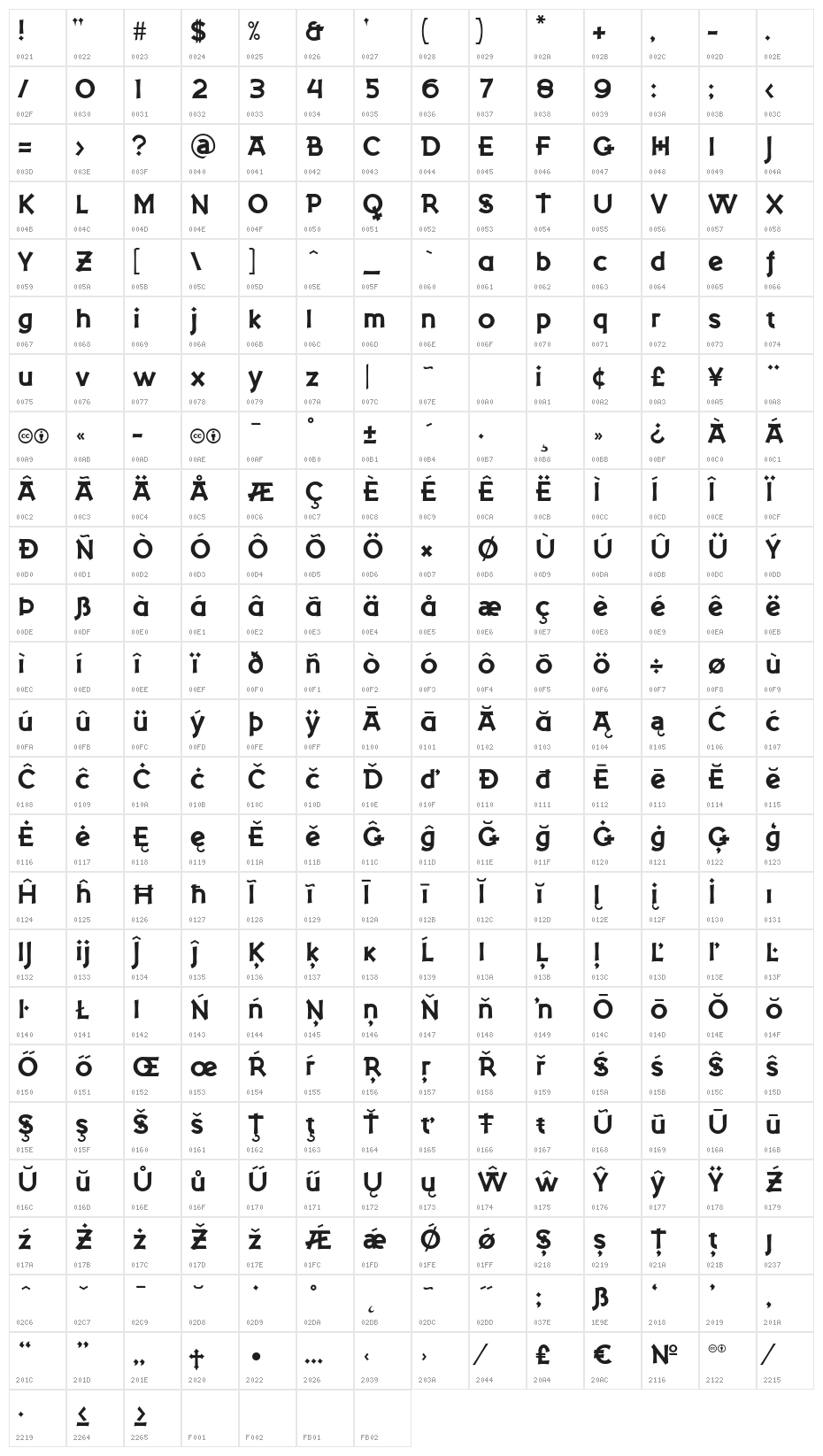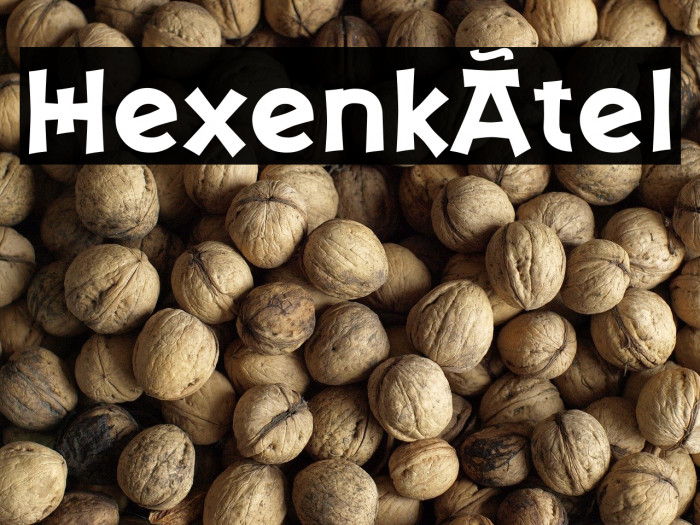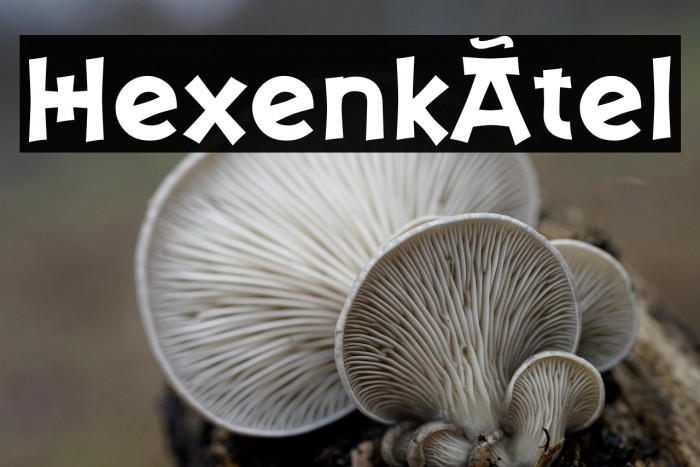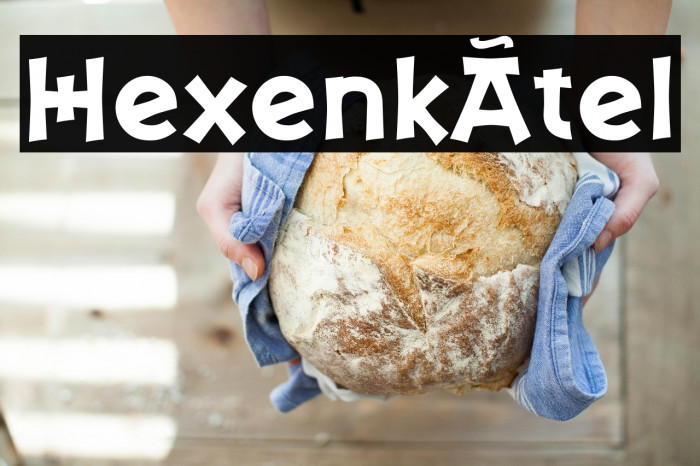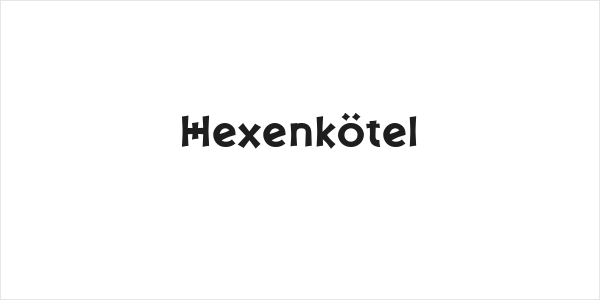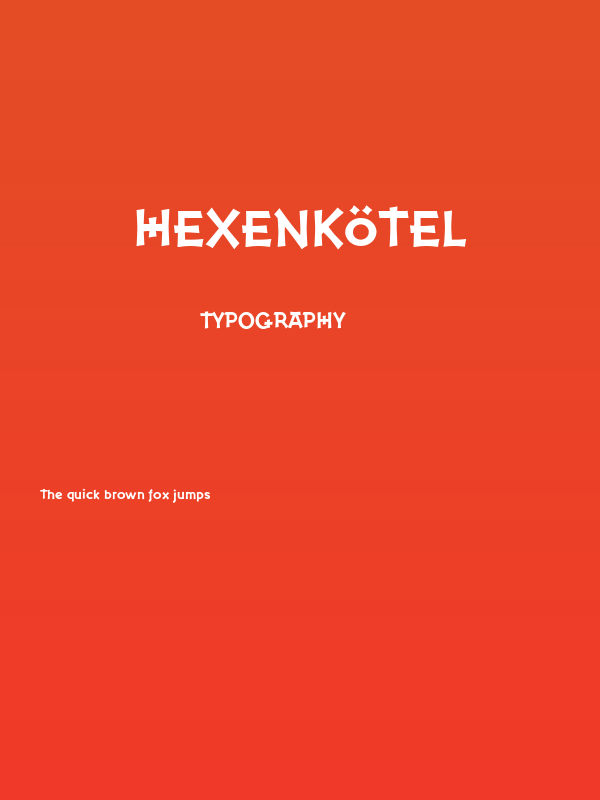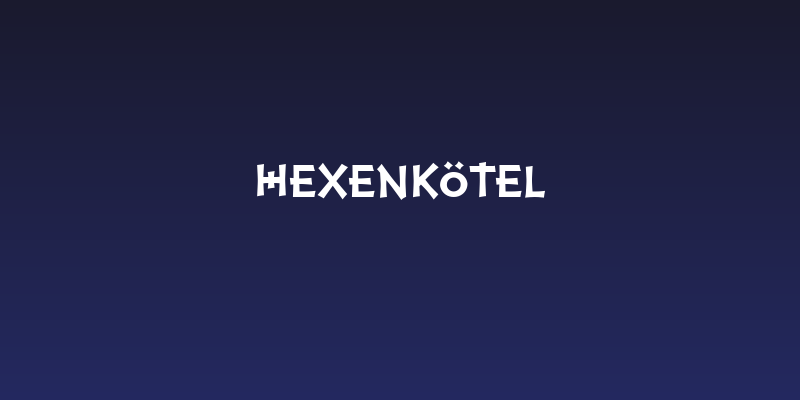
Hexenkötel Font
Hexenkötel Description
This font features a bold and playful design with a slightly irregular and quirky style. The characters have a hand-drawn appearance, with uneven strokes and a whimsical flair. The uppercase letters are particularly distinctive, with unique shapes and angles that add a sense of movement and energy. The lowercase letters maintain a consistent style, complementing the uppercase with their rounded forms and slight variations in stroke width. Numbers and special characters follow the same playful aesthetic, making the font suitable for creative and informal projects.
| Proposed Projects | Ideal for children's books, playful branding, creative posters, and informal invitations. |